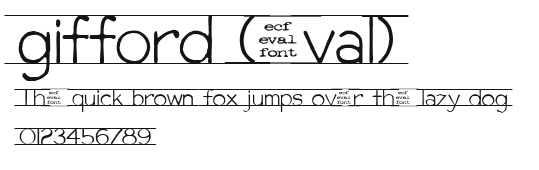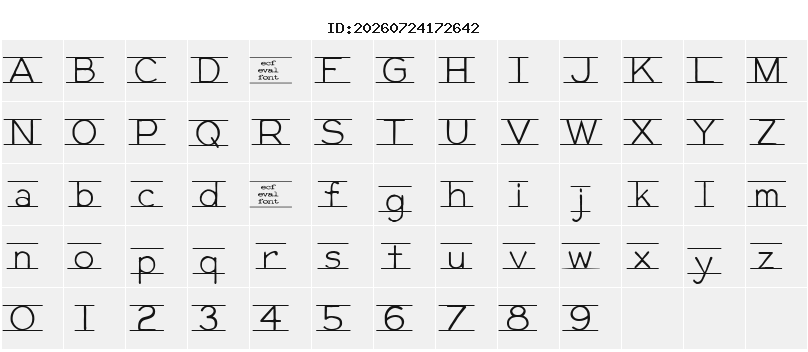
• Font Name: gifford (eval)
• Font ID: gifford (eval), emerald city fontwerks font #1844e
• Full Font Name: gifford (eval)
• Version: gifford (eval), ecf #1844e, v1.0 5/22/97
About gifford (eval).ttf
gifford (eval).ttf is a modern, elegant sans-serif font designed for ultimate readability and visual harmony. Perfect for branding, headlines, web design, and print materials.